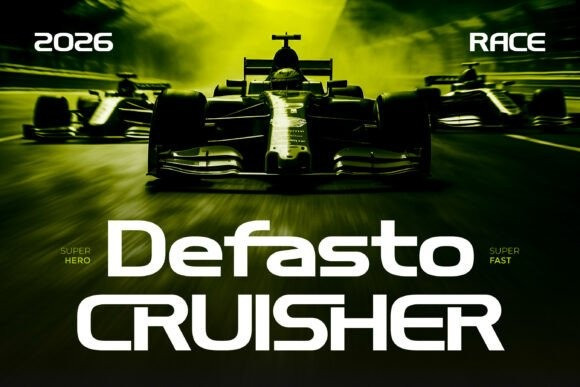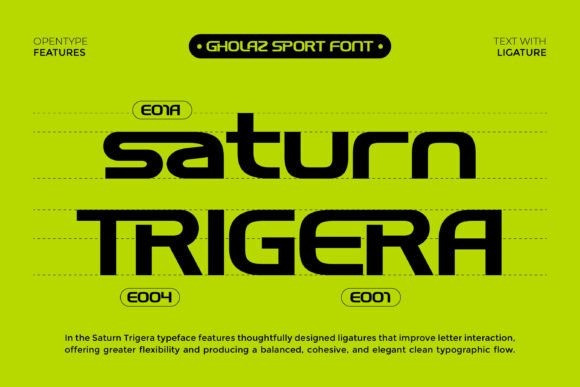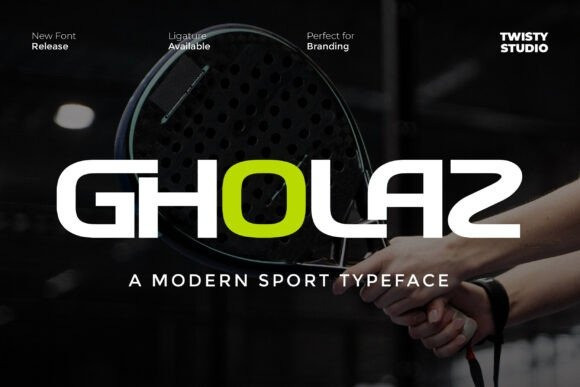
Gholaz Font
Gholaz Font is a modern sport sans serif font designed to deliver strength, speed, and high-impact visual energy. With its bold structure, sharp edges, and dynamic letterforms, Gholaz embodies the spirit of competition and performance—making it perfect for designs that demand attention and intensity.